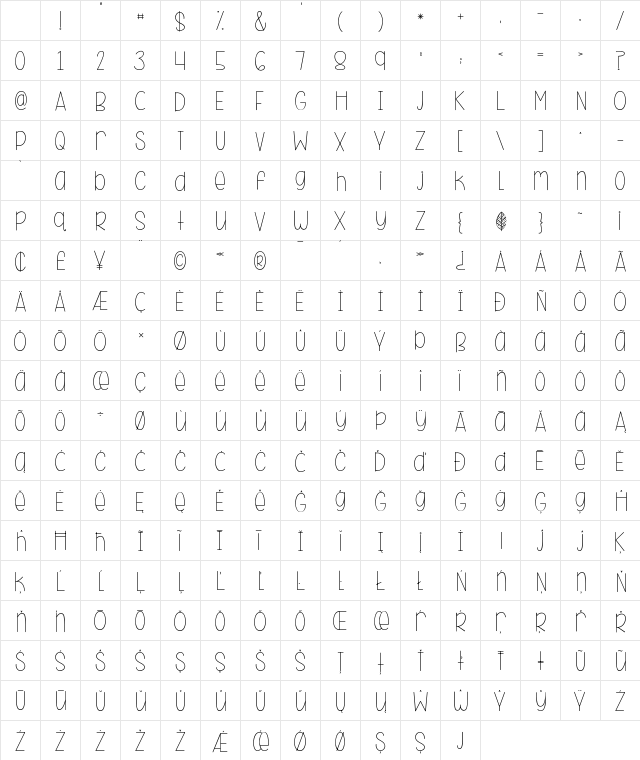
Complete KG Beneath Your Beautiful Regular glyph index. Displaying only characters natively supported by KG Beneath Your Beautiful Regular font.
KG Beneath Your Beautiful is a composed and adaptable typeface that performs quietly and consistently across a wide range of design contexts.